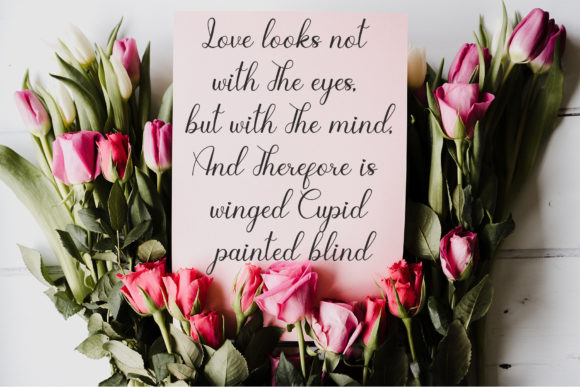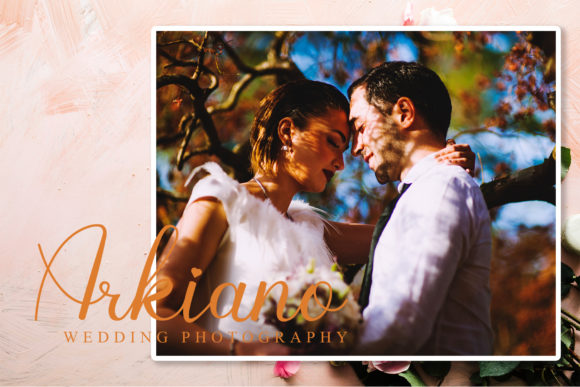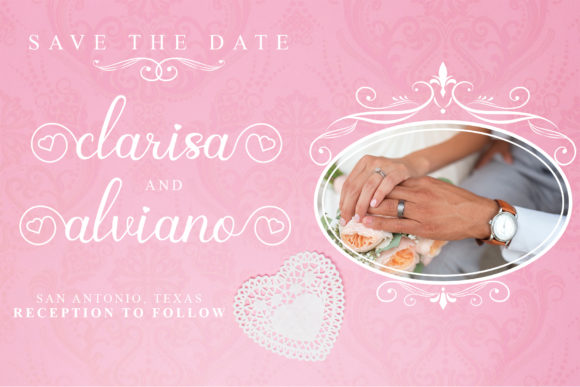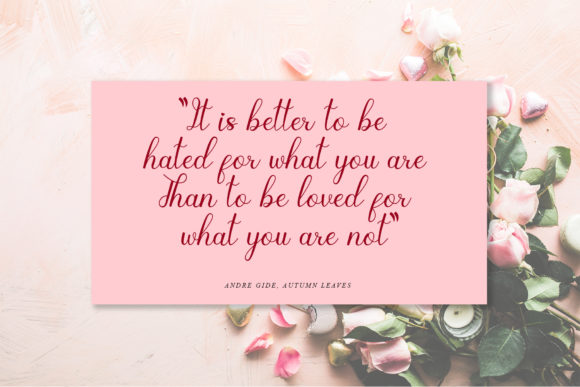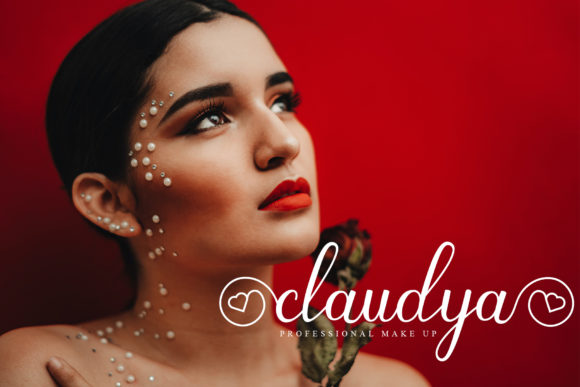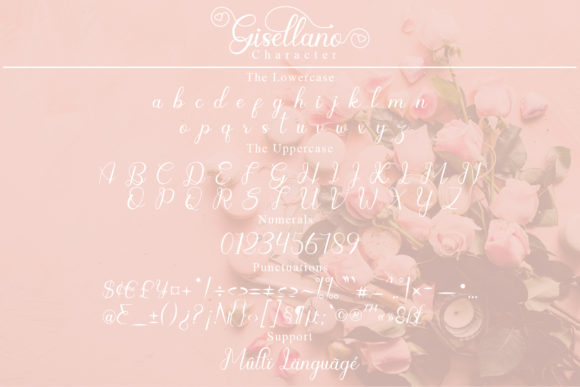
Introduction to Gisellano Font
Have you ever found yourself staring at a blank page, waiting for that perfect idea to strike? For designers, those moments of creative clarity can be a thrill, but they often require the right tools to bring them to life. That’s where the Gisellano Font comes in – a beautiful light handwritten font that adds a touch of luxury to any design project.
With its unique feel and stunning impact, the Gisellano Font is a valuable asset for designers looking to elevate their work. Whether you’re working on a creative project that requires a high-quality, transparent background or a simple logo that needs a bit of flair, this font is sure to impress. Plus, with its free download option, it’s an easily accessible design resource that won’t break the bank.
What sets the Gisellano Font apart is its PUA encoding, which allows designers to access all the amazing glyphs and ligatures with ease. This means that you can customize your design to perfection, without the hassle of searching for the perfect character. So why settle for a generic font when you can add a little extra sparkle to your work with the Gisellano Font?
Key Features of Gisellano Font
- High-quality, unique font design suitable for creative projects, with a transparent background that allows for easy customization.
- Designed with a modern aesthetic, the Gisellano Font is perfect for use in a variety of creative projects, from logos and branding to digital art and print materials.
- Features a large character set, including uppercase and lowercase letters, numbers, and punctuation marks, making it a versatile font for diverse design needs.
- Available in two font sizes: Regular and Bold, providing designers with options to create visually appealing and dynamic typography.
Honest Review: Gisellano Font
As a designer, I’m always on the lookout for high-quality design resources to elevate my creative projects. Recently, I had the chance to try out the Gisellano Font, and I’m excited to share my honest review with you.
- Unique and elegant design aesthetic
- Highly versatile and suitable for a wide range of creative projects
- Limited number of font styles and variations
- May not be suitable for projects requiring a transparent background due to its solid design
Overall, I’m impressed with the Gisellano Font’s high quality and creative potential. While it may have some limitations, it’s an excellent addition to any designer’s toolkit, especially for those working on a budget. I’d definitely recommend it for designers looking to add a touch of elegance to their projects.
Tips for Getting the Most Out of Gisellano Font
To get the most out of the Gisellano Font, consider the following tips: 1) Use a transparent background to create a seamless design. 2) Experiment with different font sizes and styles to create a unique look. 3) Combine the Gisellano Font with other high-quality design resources to create a stunning visual effect.
Common Use Cases for Gisellano Font
The Gisellano Font is ideal for a variety of creative projects, including: 1) Graphic design projects. 2) Branding and marketing materials. 3) Digital art and illustrations.